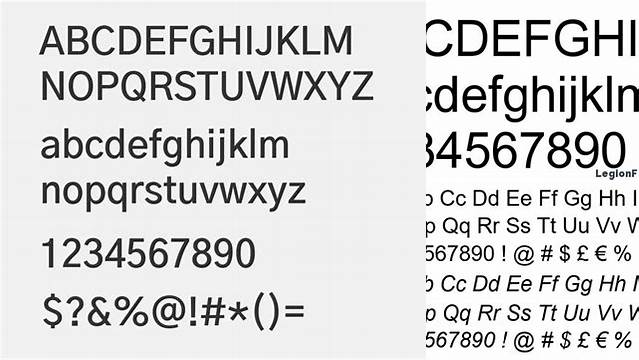
Arial Regular Font: Your Go-To Sans-Serif Choice
Arial vs. Helvetica: The Classic Font Showdown
Now, let's get into a friendly rivalry! Arial Regular is often compared to its cousin, Helvetica. These two sans-serif fonts are incredibly similar, and in fact, Arial was designed to be a direct competitor to Helvetica. But, there are subtle differences between these two. Helvetica, created in Switzerland, is generally considered to have a slightly cleaner, more refined look, while Arial, designed by Monotype, is often perceived as a touch wider and rounder. At first glance, you might not notice much difference, especially in regular weights. However, as you start to compare them side by side, the nuances become apparent. The curves on Helvetica tend to be more elegant and the overall design appears more precise. Arial, while still very legible, has slightly less crisp lines. This slight difference may make Helvetica the preferred choice for high-end branding or projects where precision is essential. Arial is known for its availability, especially in Microsoft products, making it a ubiquitous choice. But this doesn't make Arial a lesser font. Arial is a fantastic option for general use, especially when you need to ensure compatibility across various systems. Because it's so widely available, you can be confident that your documents will appear as intended, no matter who's viewing them. Now, depending on your project, both fonts can work great. If you're aiming for a contemporary or minimalist design, Helvetica might be your go-to. But if you need a reliable, easily accessible font that's great for body text and overall readability, Arial is a solid choice. Understanding the subtleties of these fonts will help you make an informed choice for your project. Go ahead and compare them side by side. It is worth the effort to see the specific differences that help you choose the best one for your needs. In the end, the best font is the one that works best for your particular needs. So, experiment and enjoy the process of finding the perfect font for your design!
Arial Font Family: Exploring Different Weights and Styles
Hey there! Let's talk about the various styles and weights that make up the Arial font family. You see, Arial Regular is just the beginning! The Arial family comes in many forms, giving you more control over your design. First off, you've got the basic weights: Arial Regular, Arial Bold, Arial Italic, and Arial Bold Italic. These are the foundation of the family. Then, you can explore different weights, such as light, medium, and black. They each have a distinct feel. Each weight and style contributes to the overall visual hierarchy of your text. You can use bold to emphasize important points or headings. Italics are great for titles or for adding a touch of elegance. Experimenting with different weights and styles will help you create a more balanced and engaging design. Besides the basic weights, you might also find condensed versions, which are great for fitting more text into a small space, and extended versions, for a bolder presence. So, you can tailor the family to fit a diverse range of projects. By exploring the various weights and styles, you can create a more versatile and compelling design. Arial allows for a wide range of creative expressions. Consider which weight is best for your project. This simple step can significantly improve the quality of your work. Remember, the goal is to create a visually appealing and functional design. Take your time, experiment, and enjoy the process. With Arial, you can create a great design.
Arial Regular in Design: Best Practices for Usage
Alright, let's talk about the practical stuff: how to use Arial Regular effectively in your designs. First off, consider readability. Arial is known for its clarity. Make sure your text is easy to read, whether you're designing for print or screen. Pay attention to the size. For body text, a size between 10-14 points typically works well. For headings, feel free to go bigger to create a visual hierarchy. Next up: spacing. Adjusting the leading (line spacing) and kerning (letter spacing) can significantly improve readability. Experiment to find the optimal settings for your specific needs. It's also important to think about contrast. Ensure that the text color contrasts well with the background color. This will help make your text stand out and be easy to read. Don't forget about alignment! Experiment with left, right, center, or justified alignment to create the desired visual effect. Think about the overall tone and style. Arial Regular is versatile, but it's not the best choice for every project. Consider your audience and your message before making any decisions. If you want to create a professional design, Arial Regular may be your font. It can be used in various projects. In addition to these basic principles, there are a few extra tips and tricks. For example, try pairing Arial Regular with a different font for headings or accents. This will add some visual interest to your design. Break up large blocks of text with headings, subheadings, and other visual elements. This will help to keep your audience engaged. And don't be afraid to experiment! Play around with different weights, styles, and sizes to find what works best for your design. So, go ahead and put these tips into practice. By following these best practices, you can use Arial Regular effectively and create designs that are both visually appealing and easy to read. You can make a professional and attractive design using Arial Regular.
Arial Regular vs. Arial Unicode MS: A Font Comparison
Let's clear up a common point of confusion: Arial Regular versus Arial Unicode MS. What's the difference? Here's the deal: Arial Unicode MS is a much more comprehensive font. It's designed to support a vast array of characters from different languages and writing systems. Arial Regular, on the other hand, has a more limited character set, primarily focusing on Latin-based alphabets. If you're working on a project that requires characters from other languages (like Greek, Cyrillic, or Chinese), then Arial Unicode MS is the way to go. It offers much wider coverage, ensuring that all your text displays correctly. But, if you're sticking to English or other Latin-based languages, Arial Regular might be sufficient. In terms of visual appearance, both fonts look quite similar in their regular weights. That is, they share the same basic design. However, Arial Unicode MS might include subtle variations to accommodate the wider range of characters. The main takeaway is that the choice between the two depends on the scope of your project. If you're working internationally or need to support multiple languages, Arial Unicode MS is essential. But if your focus is on a single language or a limited character set, Arial Regular will do the job. Consider your target audience and their needs before deciding which font is best. If you need to include characters from many languages, use Arial Unicode MS. It provides the most comprehensive support. Choose the font that best suits your project's specific requirements. Keep your audience in mind when deciding.
Arial Regular Font Styles: Bold, Italic, and Beyond
Let's break down the various styles offered by the Arial Regular font. Aside from the basic Arial Regular style, you'll find Arial Bold, Arial Italic, and Arial Bold Italic. These are the core building blocks for creating visual hierarchy and emphasis in your design. Arial Bold is perfect for headings, titles, and other elements that you want to stand out. It provides a stronger visual impact. Arial Italic adds a touch of elegance or can be used to indicate emphasis. Use italics for quotes, foreign words, or book titles. For a more robust and striking effect, combine both styles. Arial Bold Italic gives you the best of both worlds: bold and elegant. Experiment with different combinations of these styles to create a unique visual style. You might also come across other variations, such as condensed or extended versions. These variations can be useful for specific design needs. By using these styles effectively, you can create a balanced and engaging design. Each style serves a unique purpose. Make sure to understand the purpose of each of the styles to ensure proper use. Remember, the goal is to create a visually appealing and functional design. Remember to use these styles. You can use these basic styles to create a design.
Arial Regular and the History of Typography
Let's take a quick trip through the history of typography and see where Arial Regular fits in. Typography has a long and fascinating history. Arial Regular is a fairly recent font compared to some of the classic typefaces. It was created in the late 1980s. The font was designed by Monotype. Arial Regular was created to compete with Helvetica. The design of Arial Regular draws inspiration from various sans-serif fonts. This includes the International Typographic Style. Arial Regular is considered a